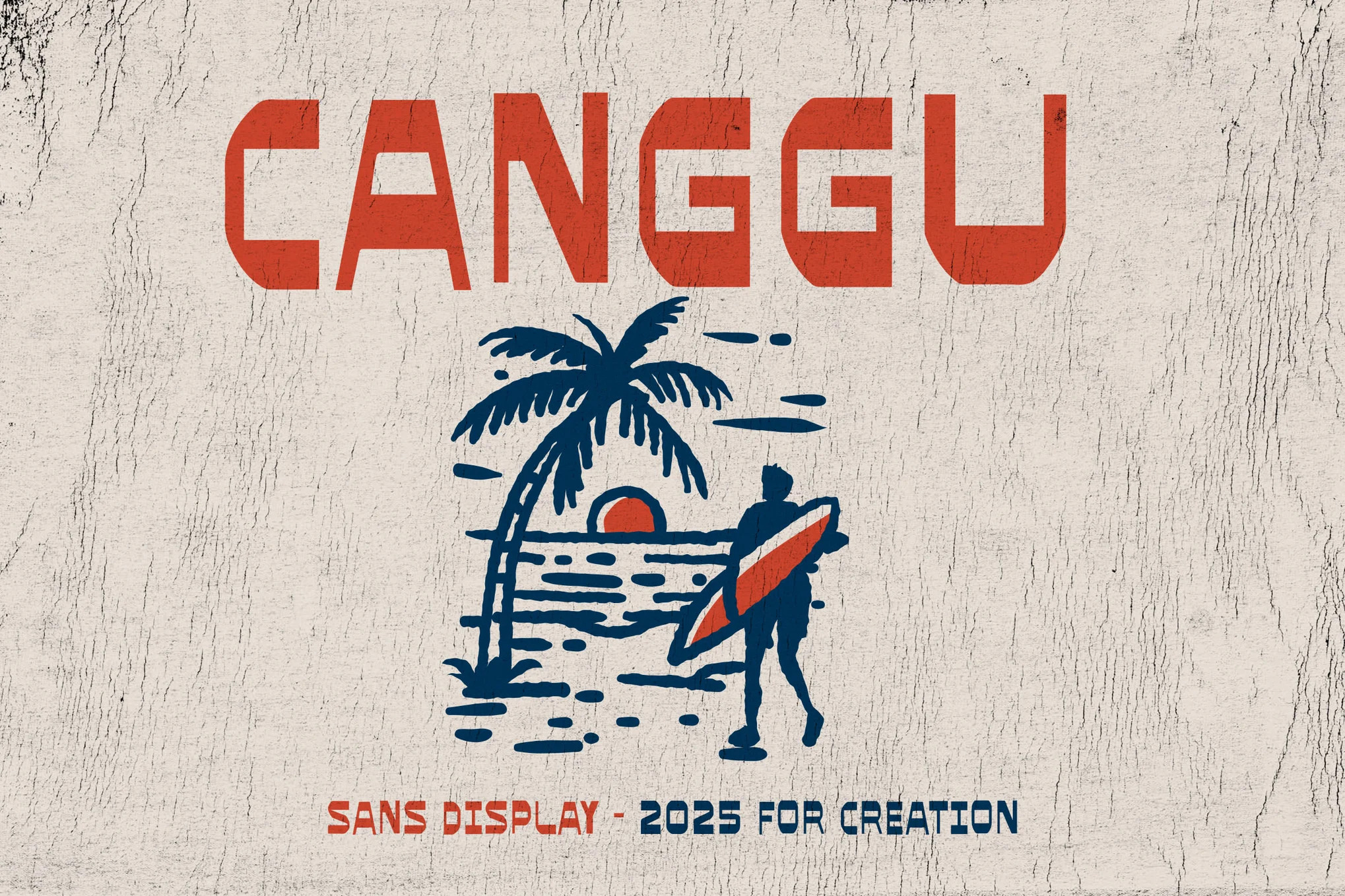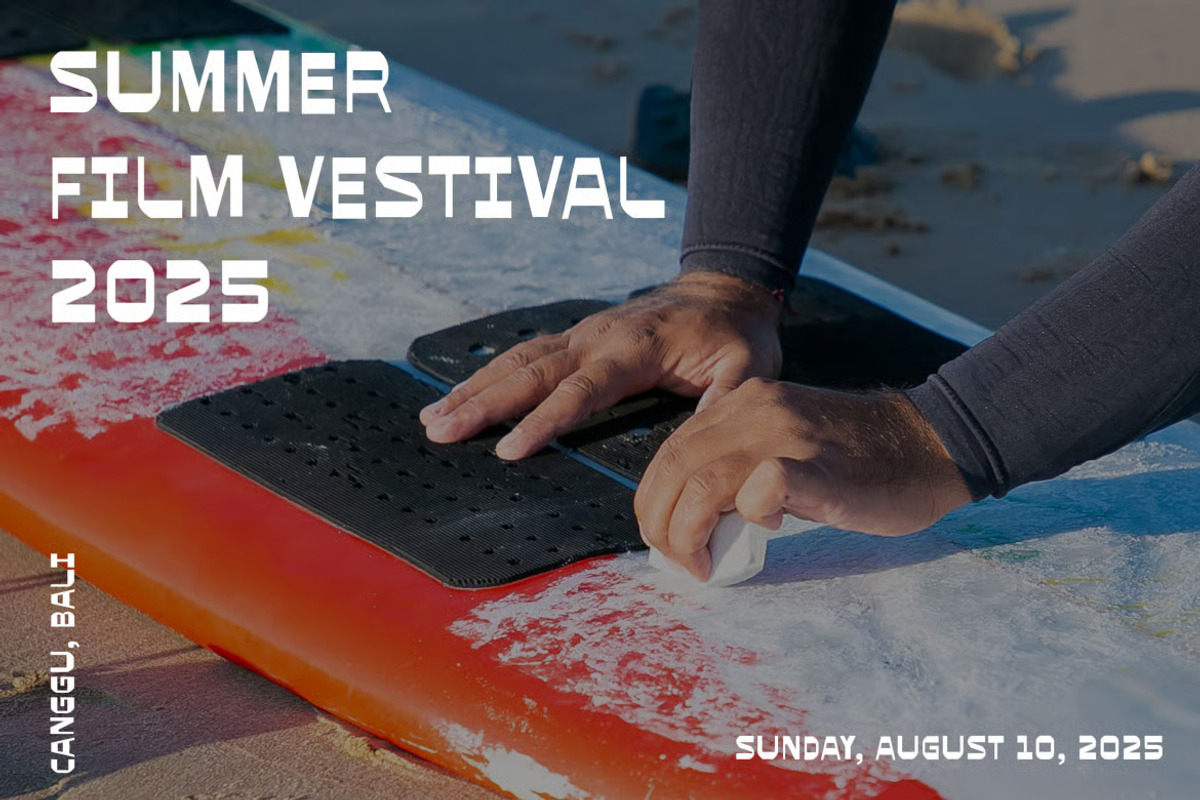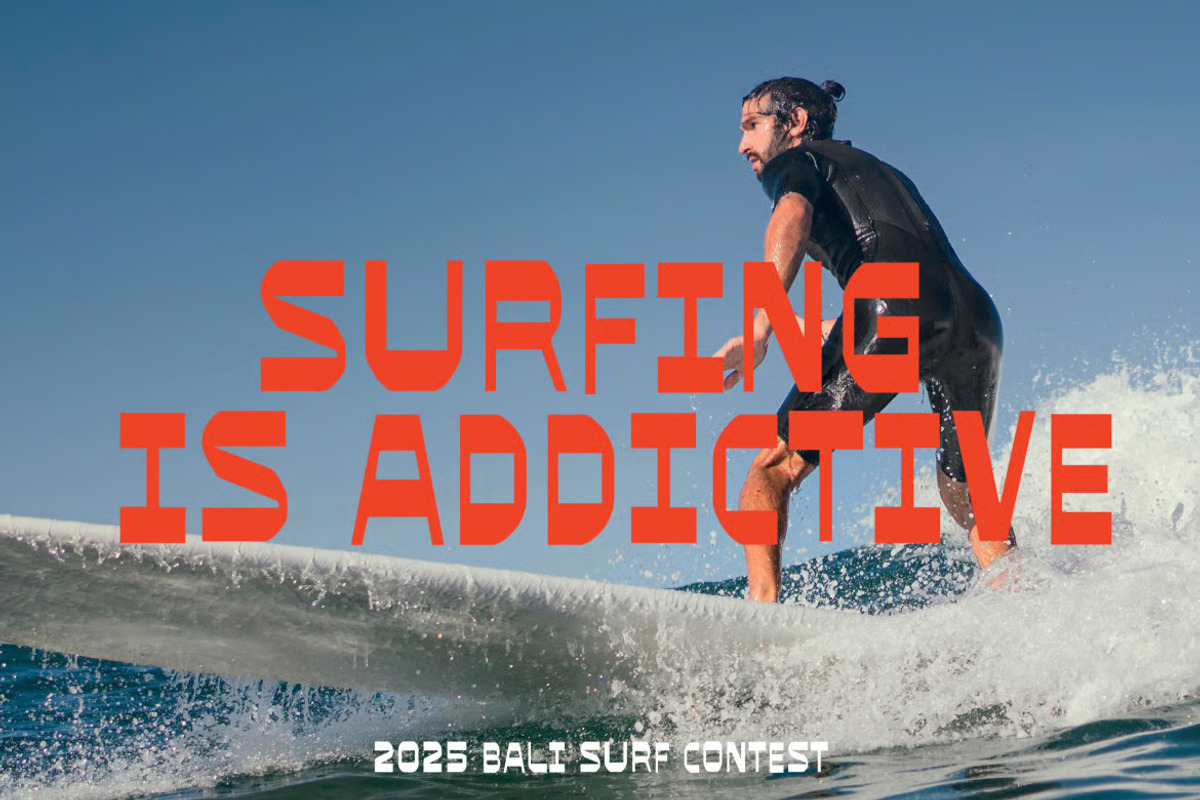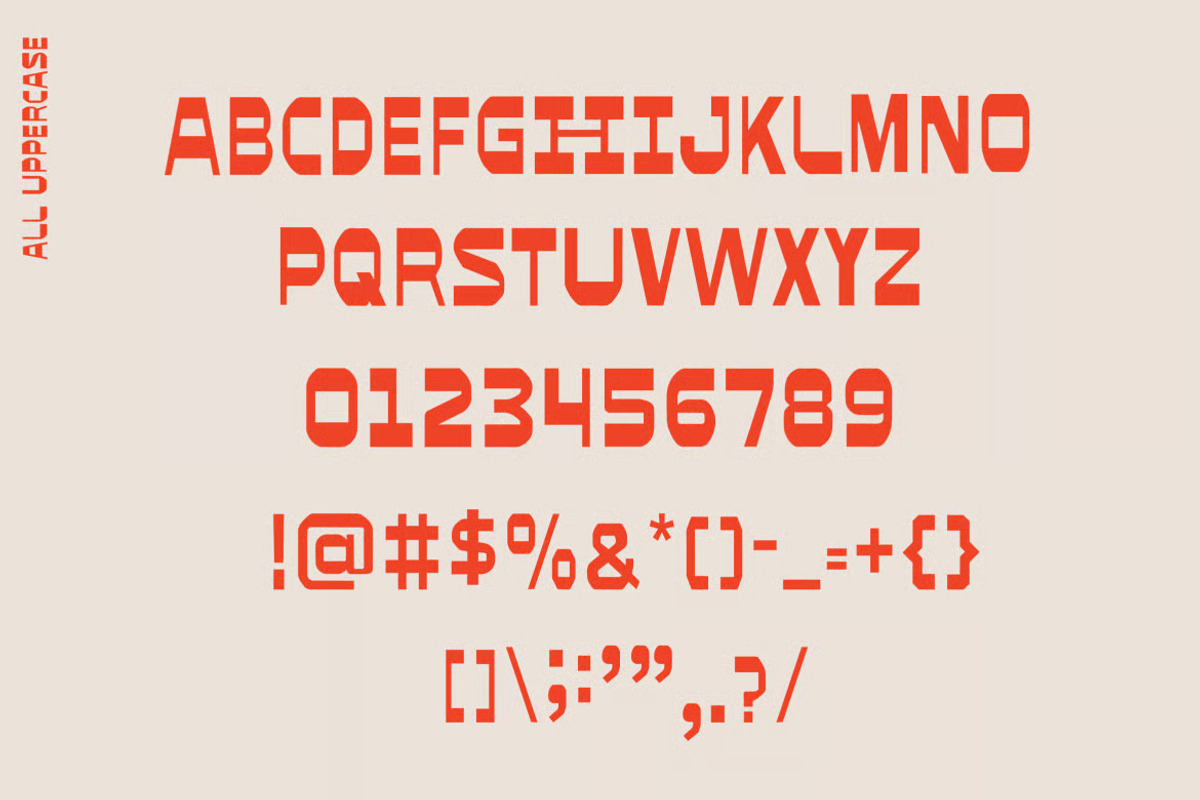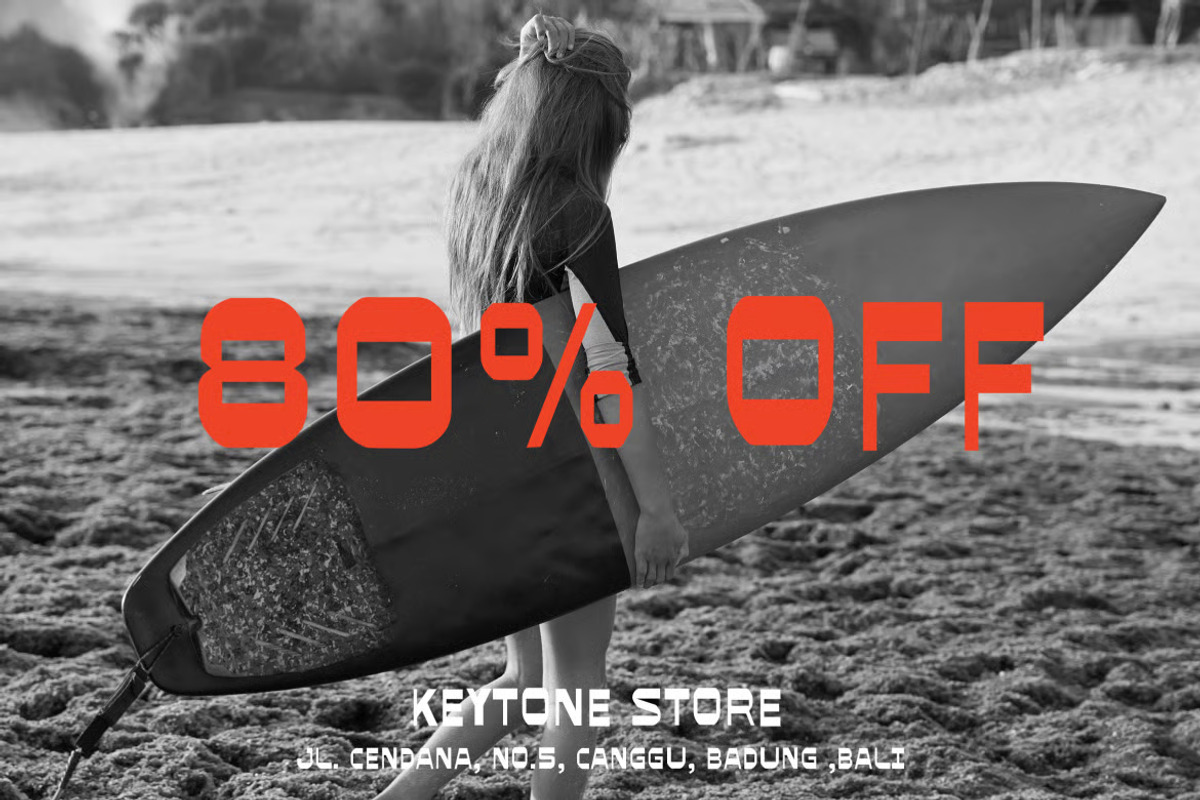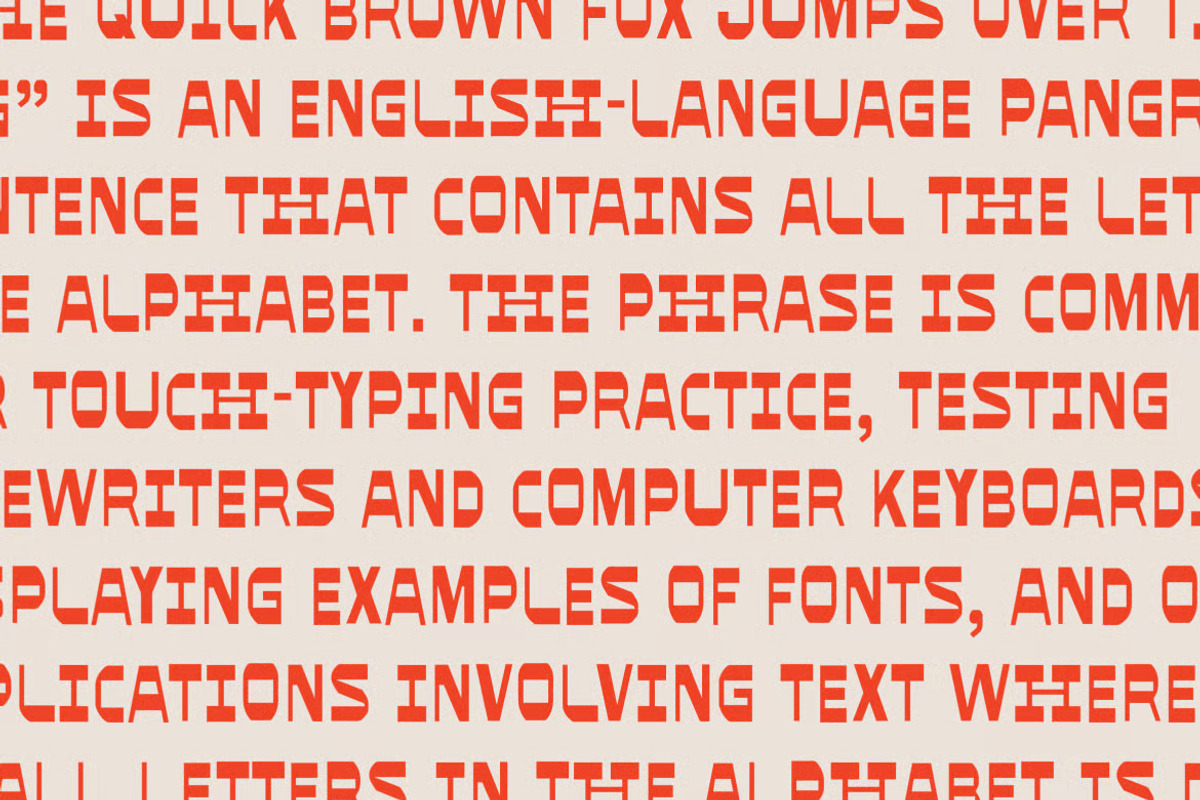
Canggu – Retro Surf Display Font
Canggu is a bold sans display font inspired by beach culture, surf lifestyle, and handcrafted signage. With sharp geometric edges and clean structural lines, it captures the laid-back vibe of coastal life while maintaining strong visual impact. Each letterform carries a hand-stamped, artisanal quality, giving the typeface a raw and authentic character.
Bold and confident, Canggu brings a punchy and adventurous look to your creative work, striking a balance between rugged charm and clean structural form. Designed in all caps, its strong horizontal weight evokes the feeling of vintage surf shop signage and beachside street art.
All Caps / Uppercase Only